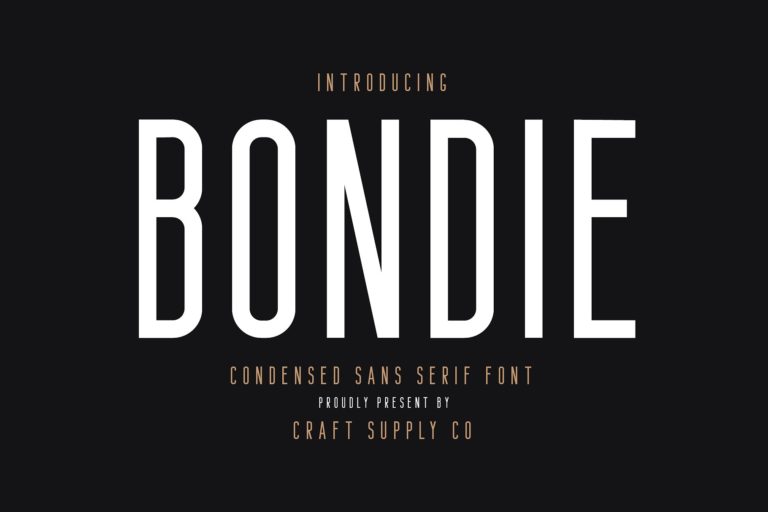
Bondie Sans Serif Font
Hi designer! If you are designing a logo or any other project, this is a good choice. Introducing Bondie Font. It is designed and shared by Craft Supply Co. Bondie – Condensed Sans Serif is an Elegant Condensed sans serif with solid font files. it is based on the compact solid font, by combining a variety of styles. Suitable for Logo, greeting cards, quotes, posters, branding, name card, stationary, design title, blog header, art quote, typography